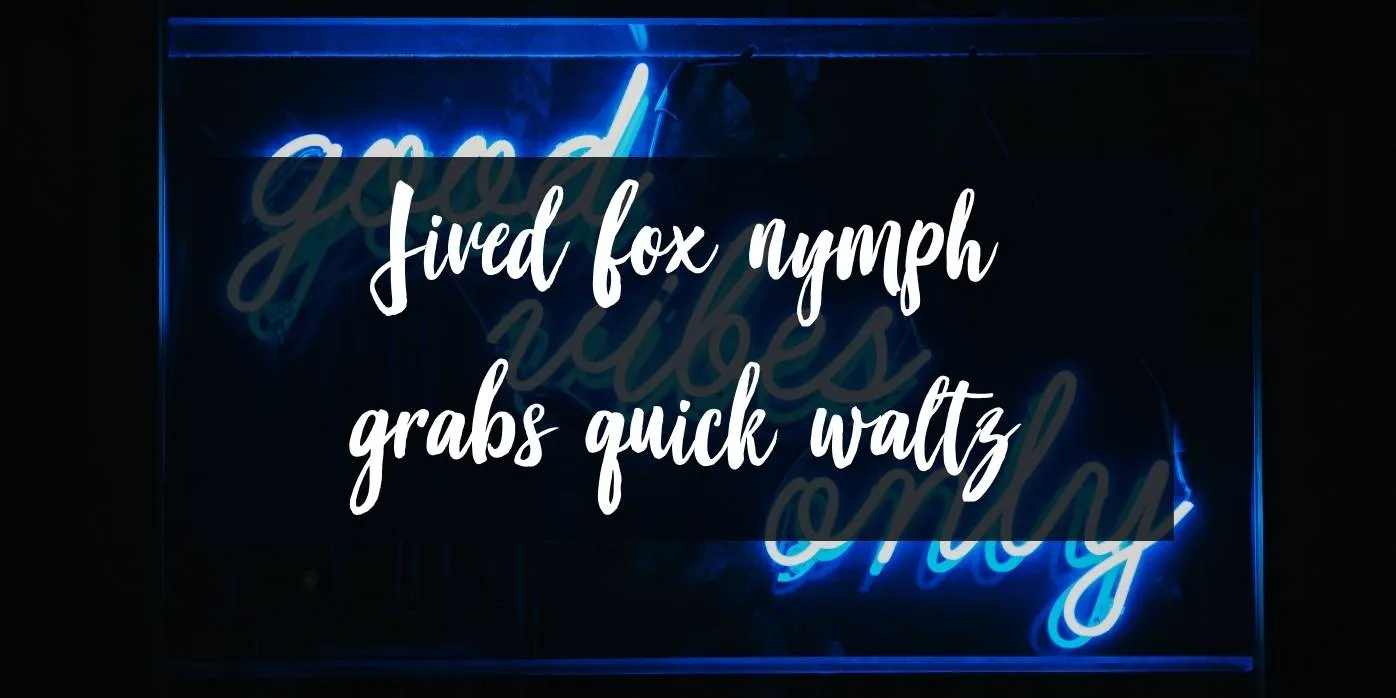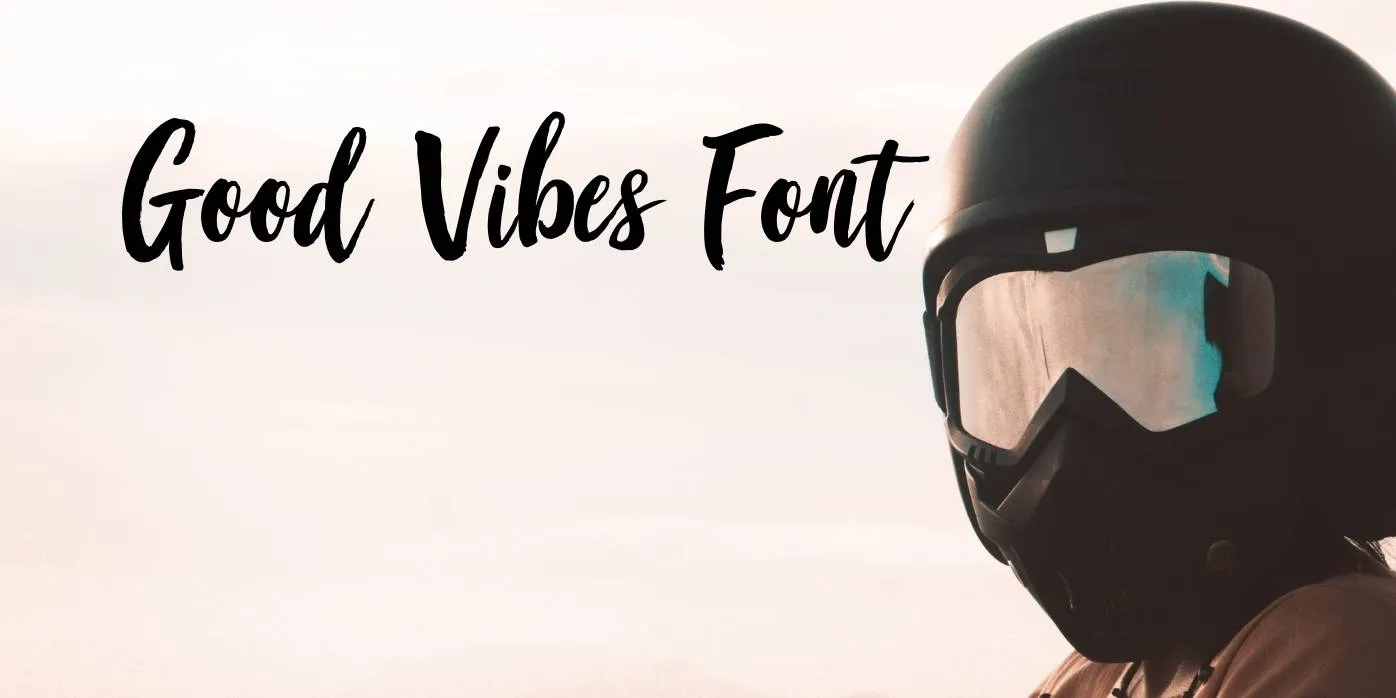
Good Vibes Font
Good Vibes Font was designed by a very well-known designer Peter Olexa. This typeface belongs to the Script typeface. This cute font is best for magazine titles, banners, and posters. This attractive font has two styles: Regular and Rough versions.
This classy font family contains 21 fonts in total. This typeface incorporates many new features which are rarely seen in other typefaces. It contains alternate characters, swashes, and lots more. This attractive typeface is suitable for instagram.